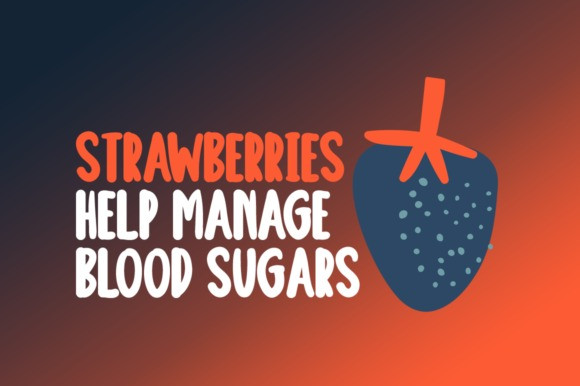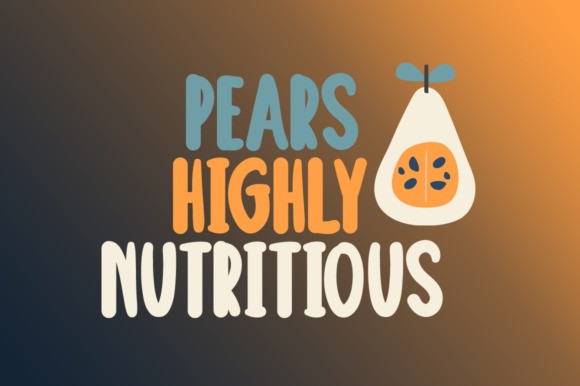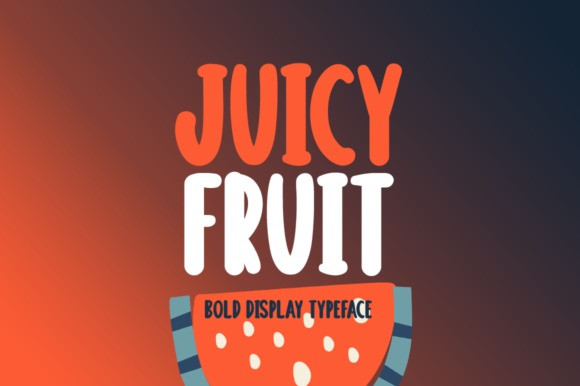
Juicy Fruit Font
Juicy Fruit Display Font is a bold and paint brushed display font. No matter the topic, this font will be an incredible asset to your fonts’ library, as it has the potential to elevate any creation.